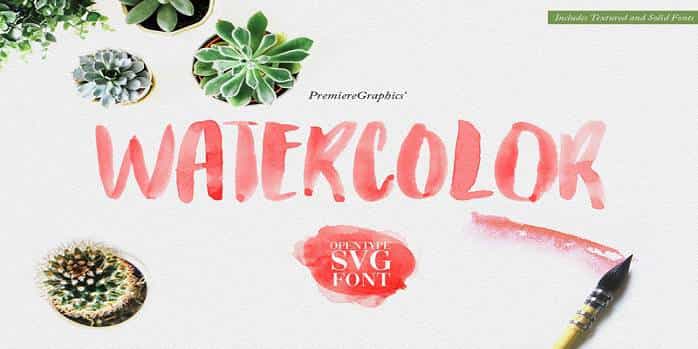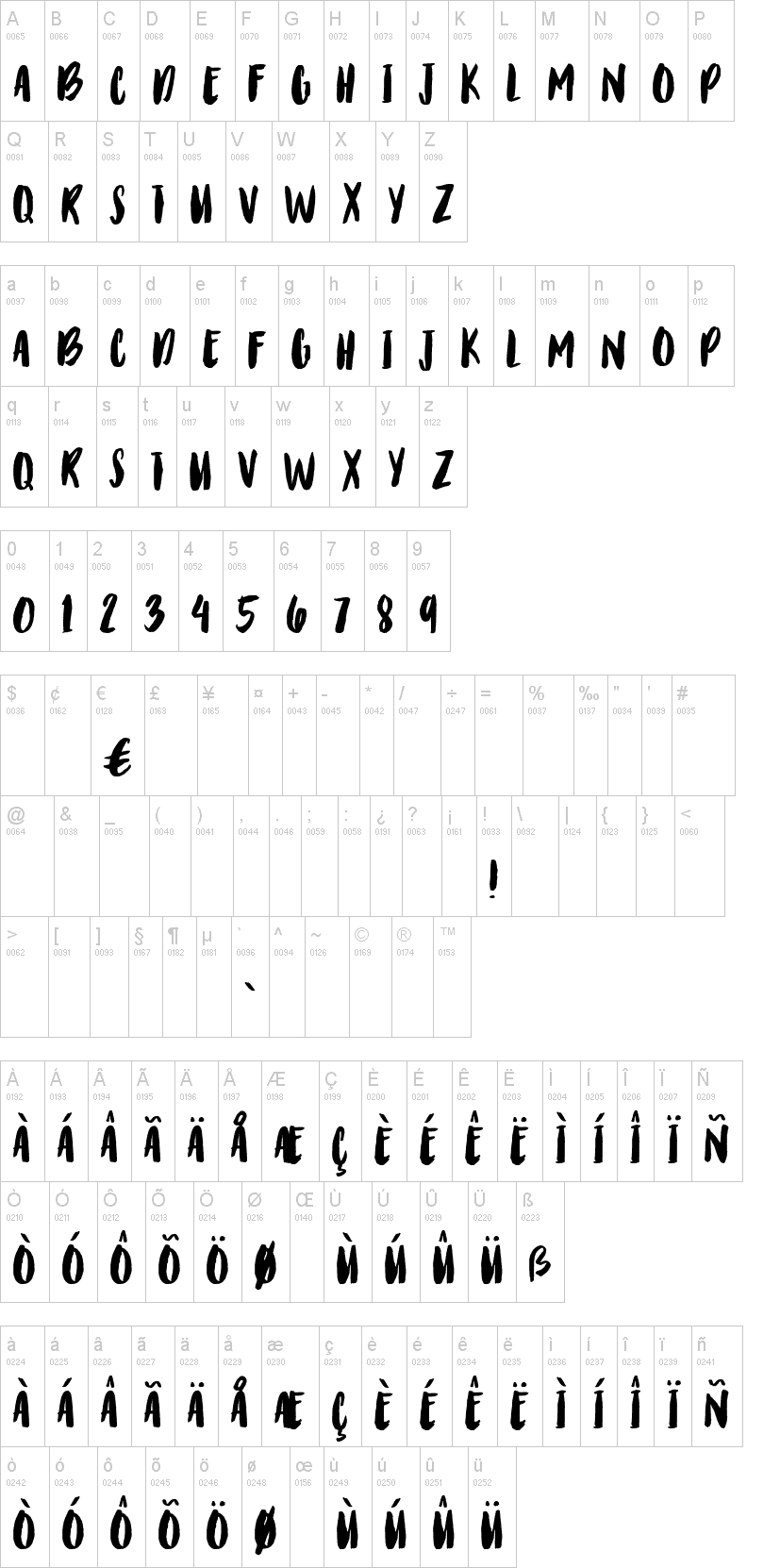
Watercolor SVG Font is the most literal font for sure!From its name, through its fashion, and up to its reality. Watercolor font is the pioneer SVG font available from PremiereGraphics. The font aims at achieving a watercolor effect on your project without much struggle, just pick the SVG font and type whatever you want!The font is ideal for logo, branding, photography, blogs, videos, weddings, sports, and many other too!This typeface is also an excellent partner for script fonts.